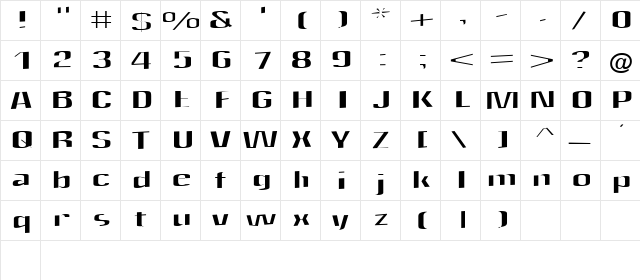
Quantity Normal Font Preview
Quantity Normal
Quantity Normal Font Details
Design Context for Quantity Typeface
Quantity is a composed and adaptable typeface that performs quietly and consistently across a wide range of design contexts.